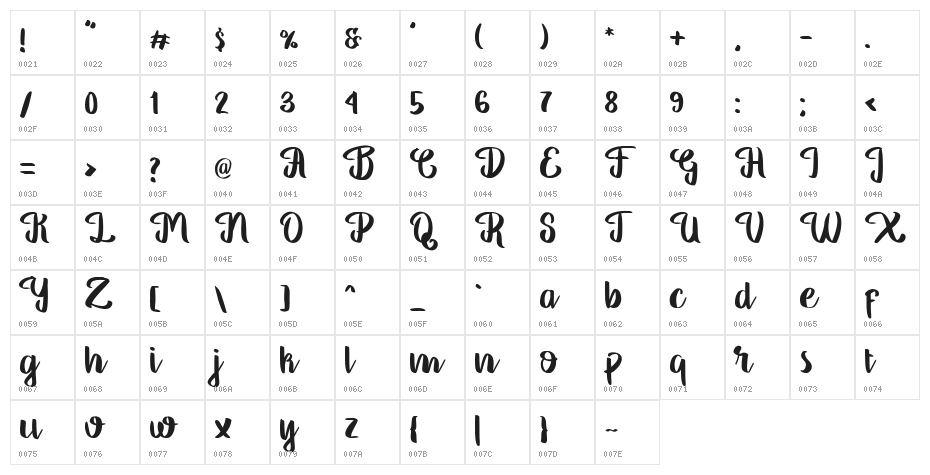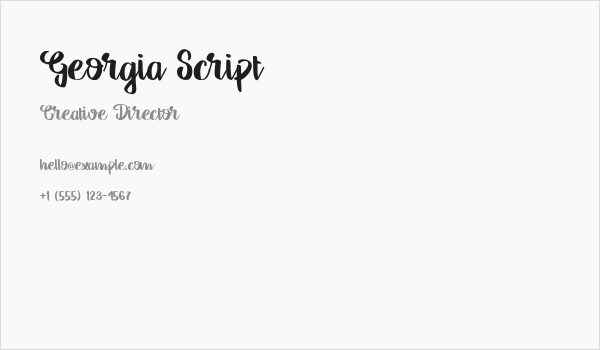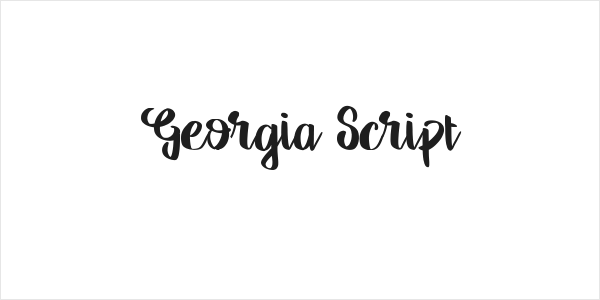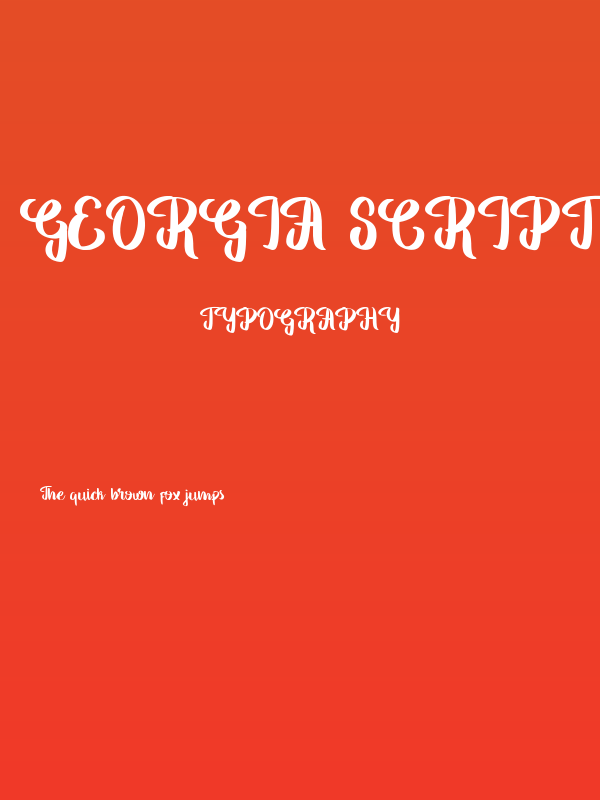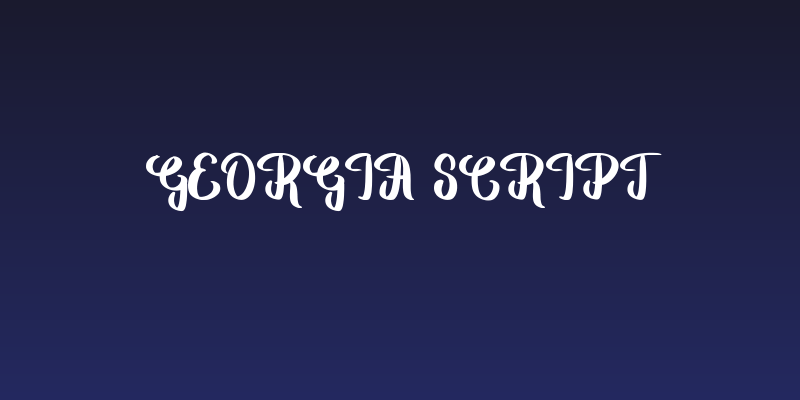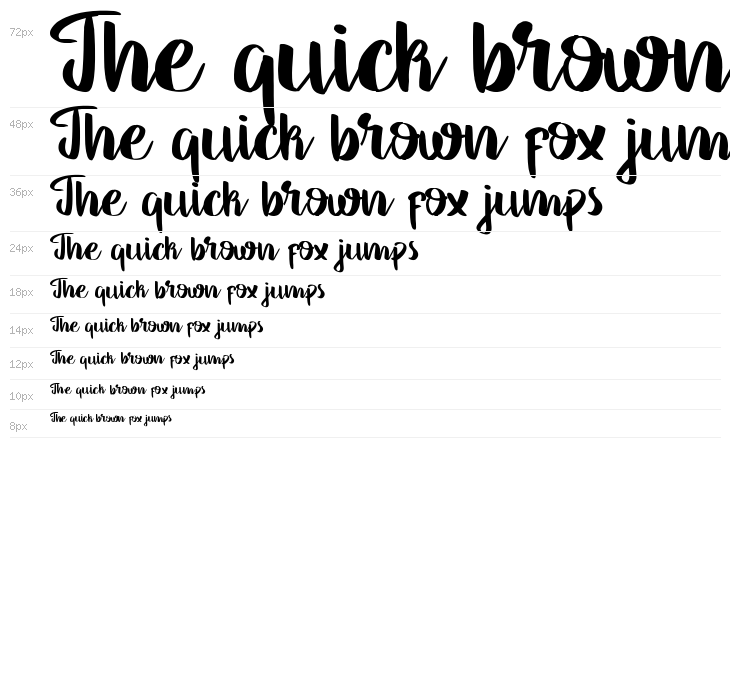
Georgia Script Font
Georgia Script Description
This font features a bold and expressive script style with a flowing, cursive appearance. The characters are interconnected, creating a sense of continuity and elegance. The uppercase letters are ornate, with flourishes that add a decorative touch, while the lowercase letters maintain a consistent rhythm and fluidity. The numerals are styled to match the script's overall aesthetic, ensuring cohesion across all characters. Special characters are designed with the same attention to detail, making them suitable for various creative applications.
| Proposed Projects | Ideal for wedding invitations, branding, greeting cards, and elegant packaging design. |